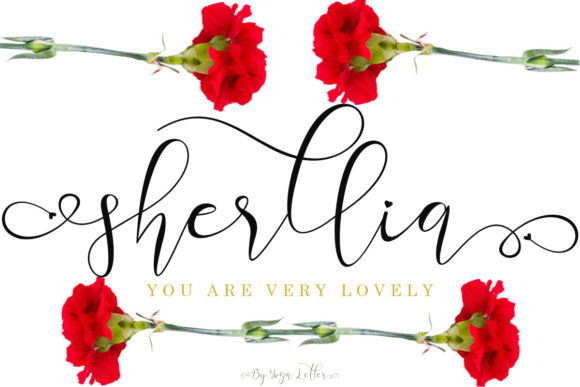
Feast your eyes upon Sherllia Font, a masterpiece in the realm of handwritten fonts. This exquisite creation by yogaletter6 is a symphony of elegance and modernity, capturing the essence of classic calligraphy while emanating a vibrant, contemporary spirit. Allow Sherllia to grace your designs, propelling them to unprecedented heights of beauty and sophistication.
With its effortless flow and graceful curves, Sherllia is an ode to timeless artistry. Its meticulous design ensures that each letterform dances upon the page, enchanting the eyes with its charm and legibility. Experience the sheer joy of crafting stunning posters, greeting cards, logos, and social media posts that radiate a touch of elegance and sophistication.
Unleash your creativity and immerse yourself in a world where words transform into works of art, thanks to Sherllia's captivating swashes and alternate glyphs. Accessed effortlessly through PUA encoding, these embellishments add a touch of playful individuality to your designs, allowing your creations to stand out from the ordinary and capture the attention of all who behold them.
Sherllia is not merely a font; it's an invitation to embark on a creative journey where your imagination knows no bounds. Whether you're a seasoned designer or just starting out, Sherllia will become your trusted companion, elevating your projects to new levels of excellence. Its versatility is unmatched, seamlessly adapting to a myriad of design styles, from the whimsical to the formal, the playful to the profound.
Fall in love with Sherllia Font, the epitome of sophistication and grace, and watch as your designs blossom into breathtaking masterpieces. Experience the sheer joy of transforming ordinary words into extraordinary works of art, captivating your audience with every stroke of your creative genius. Embrace the transformative power of Sherllia and unlock the boundless possibilities that await you.